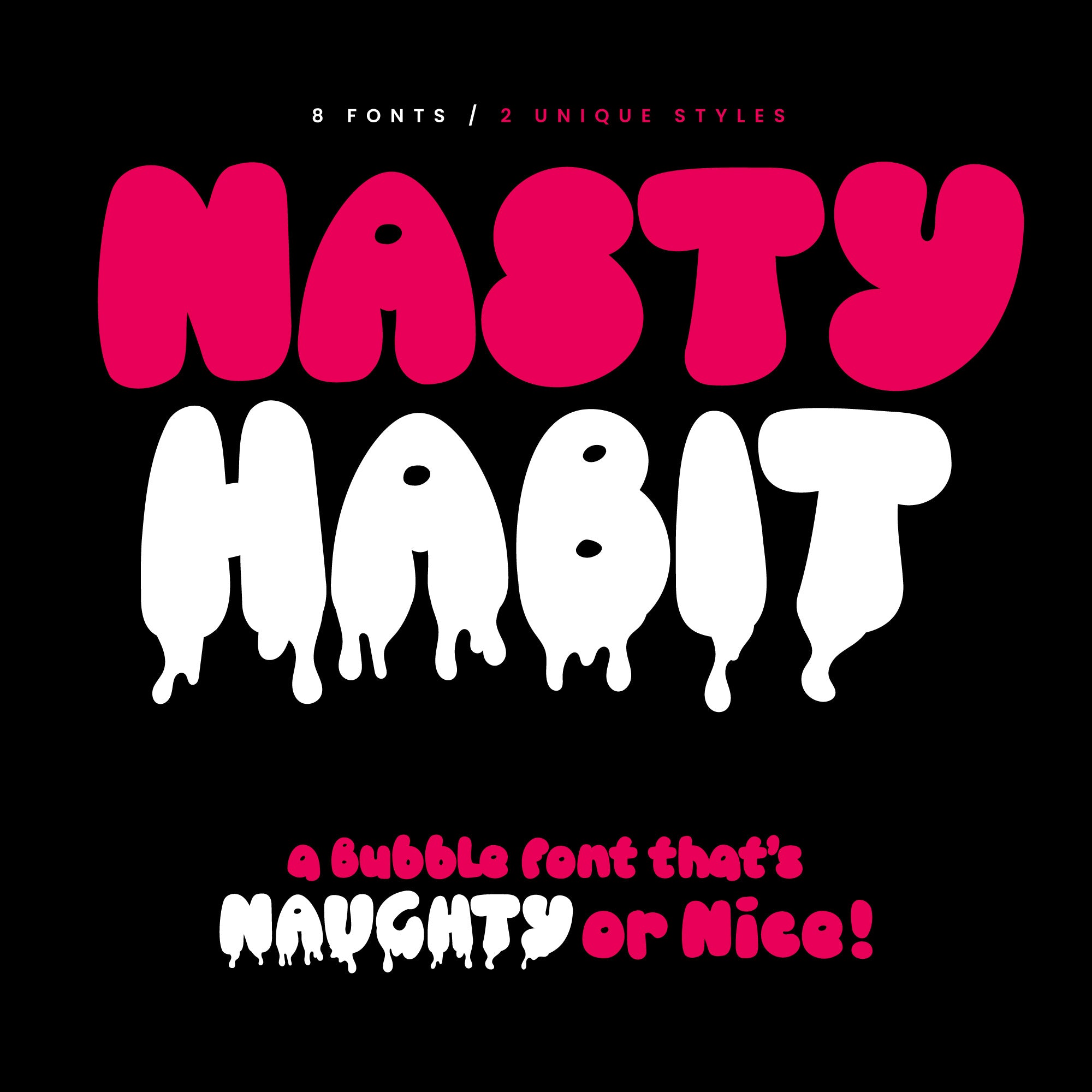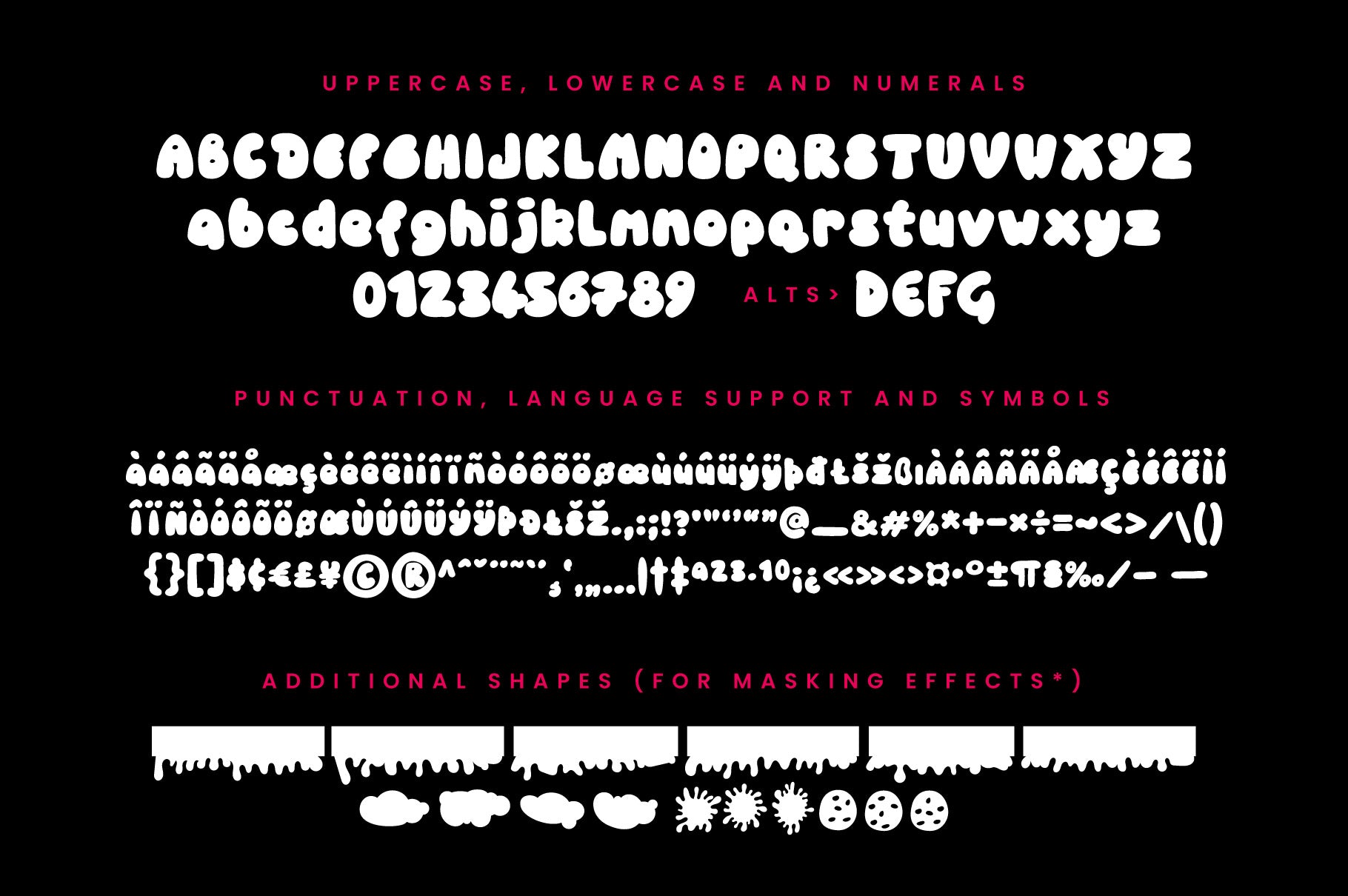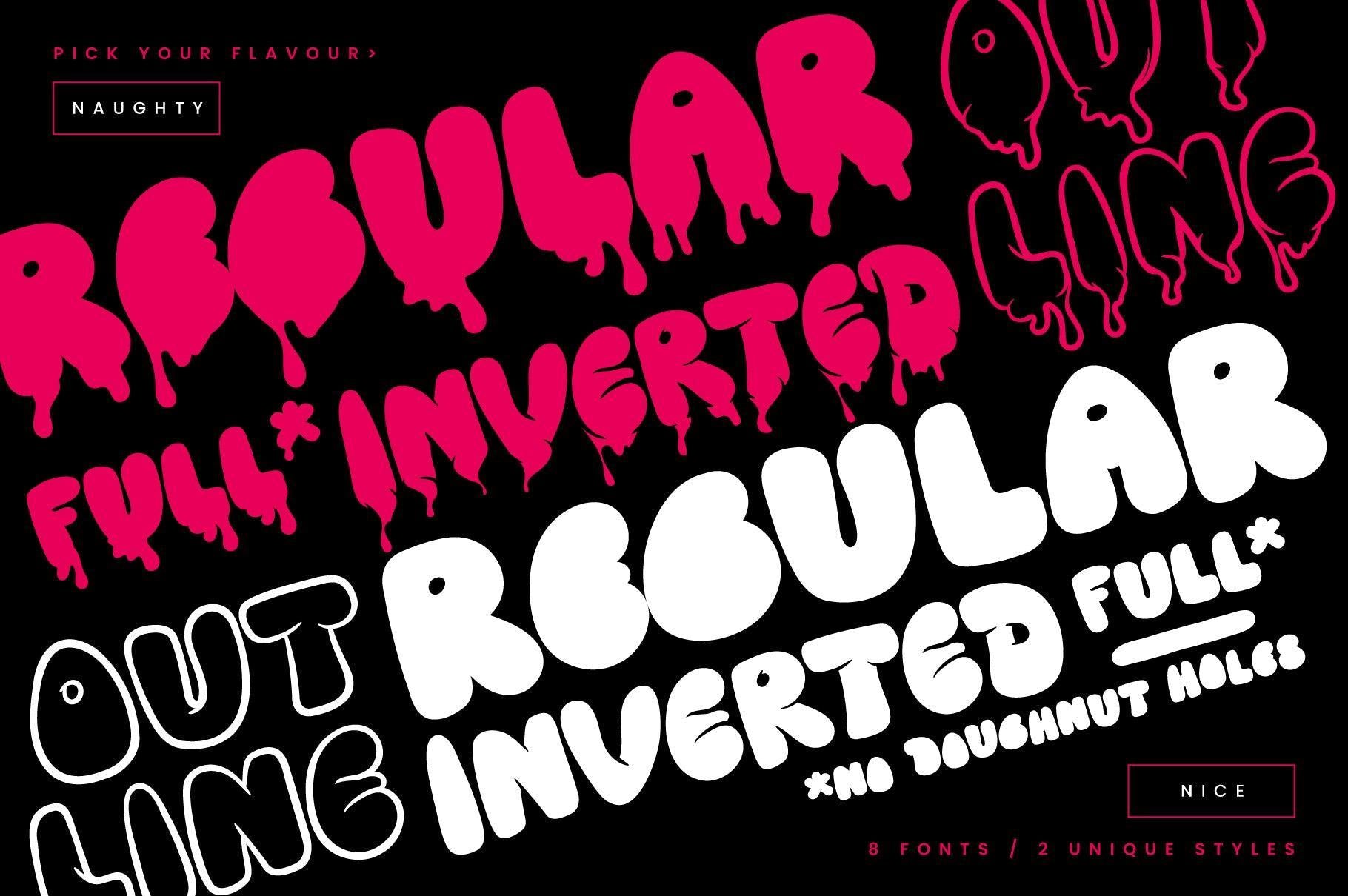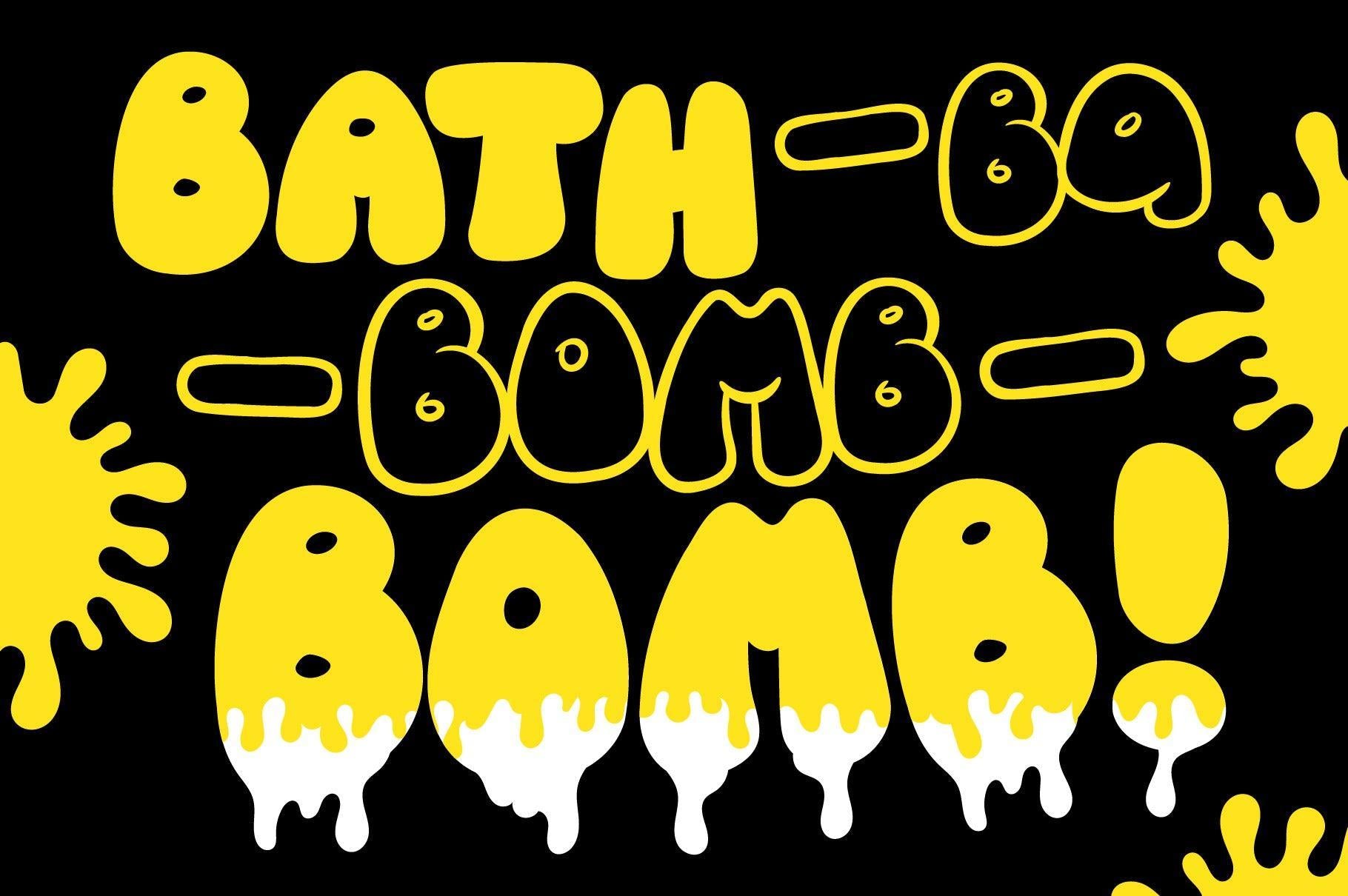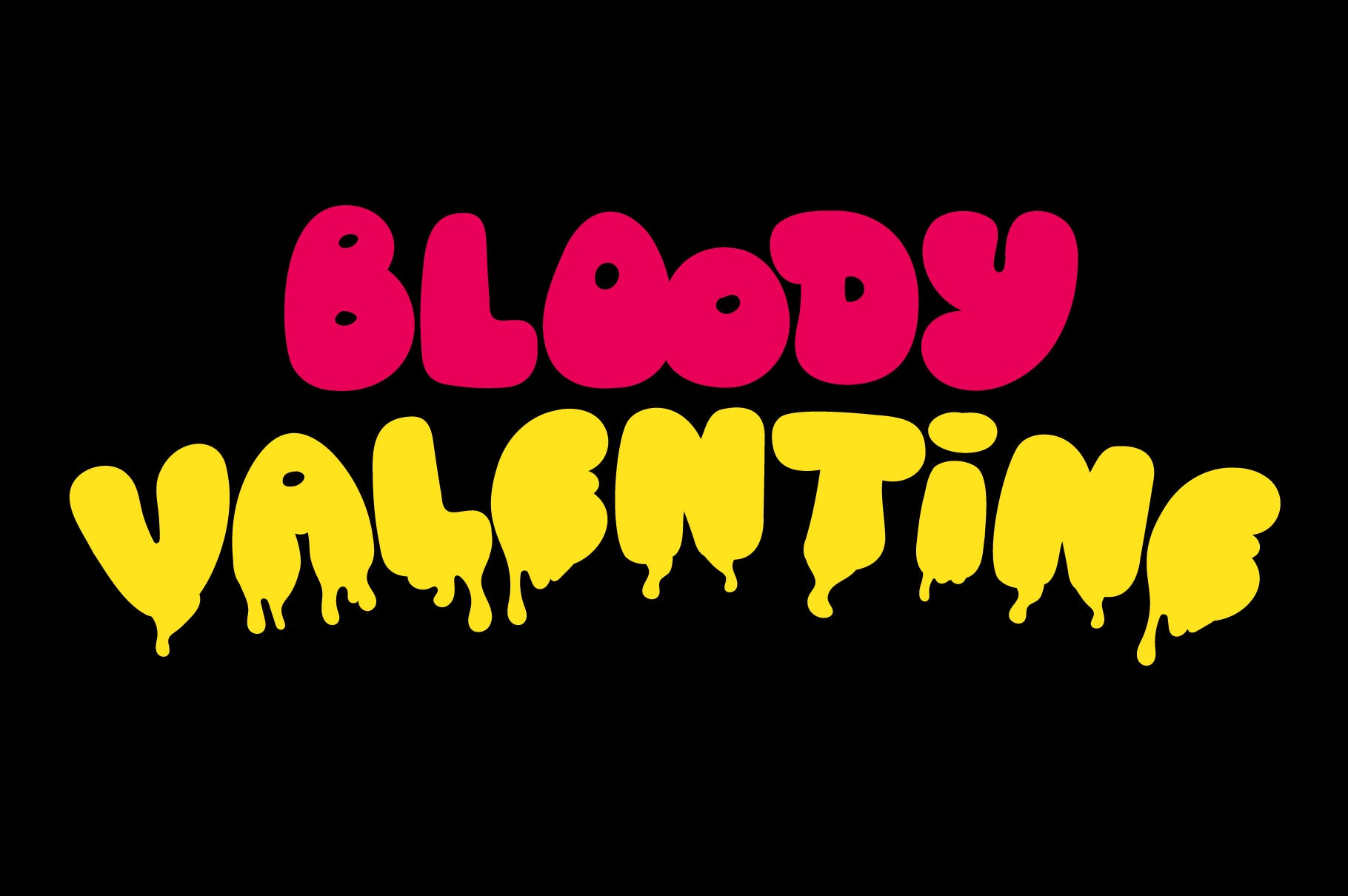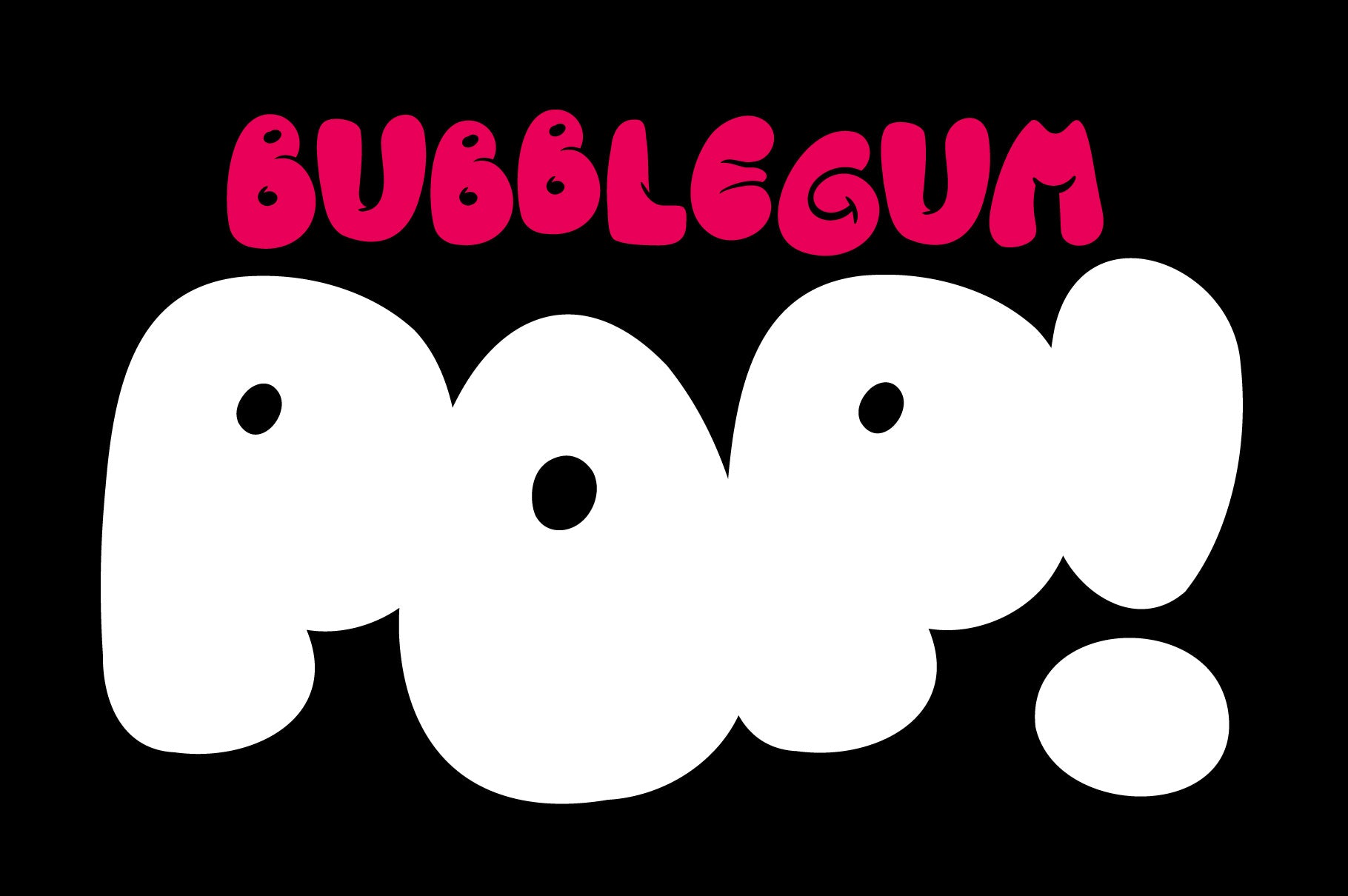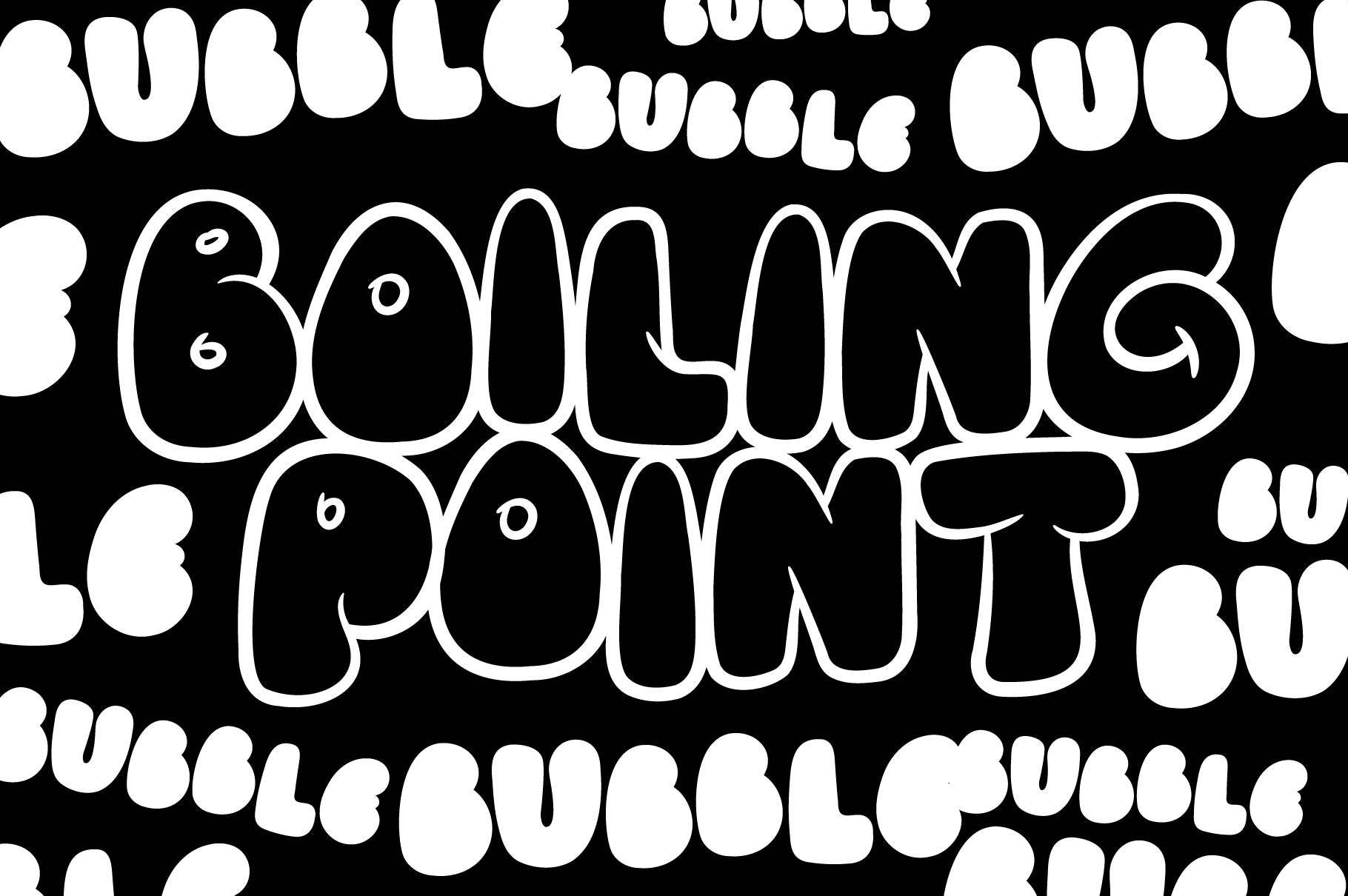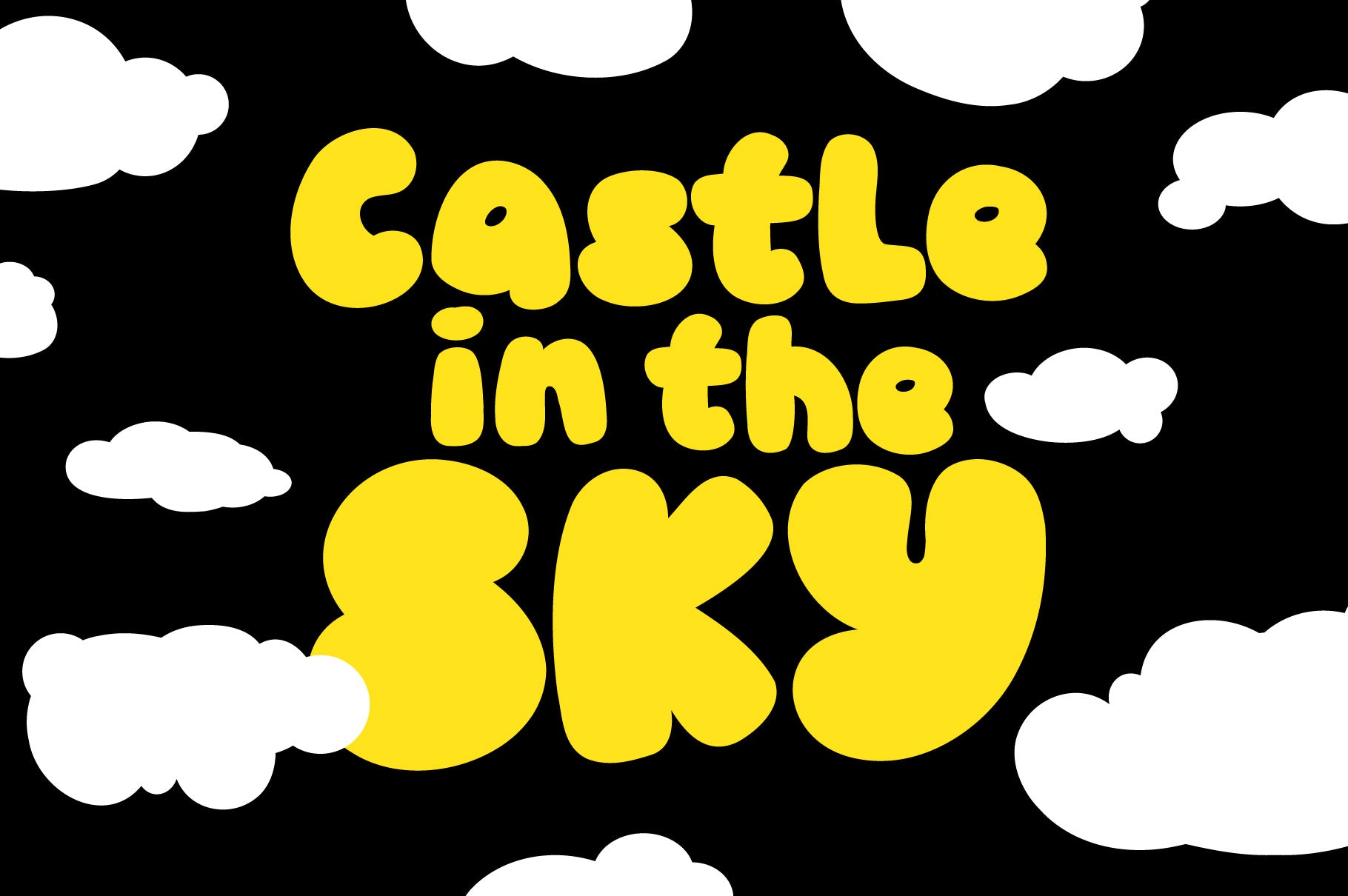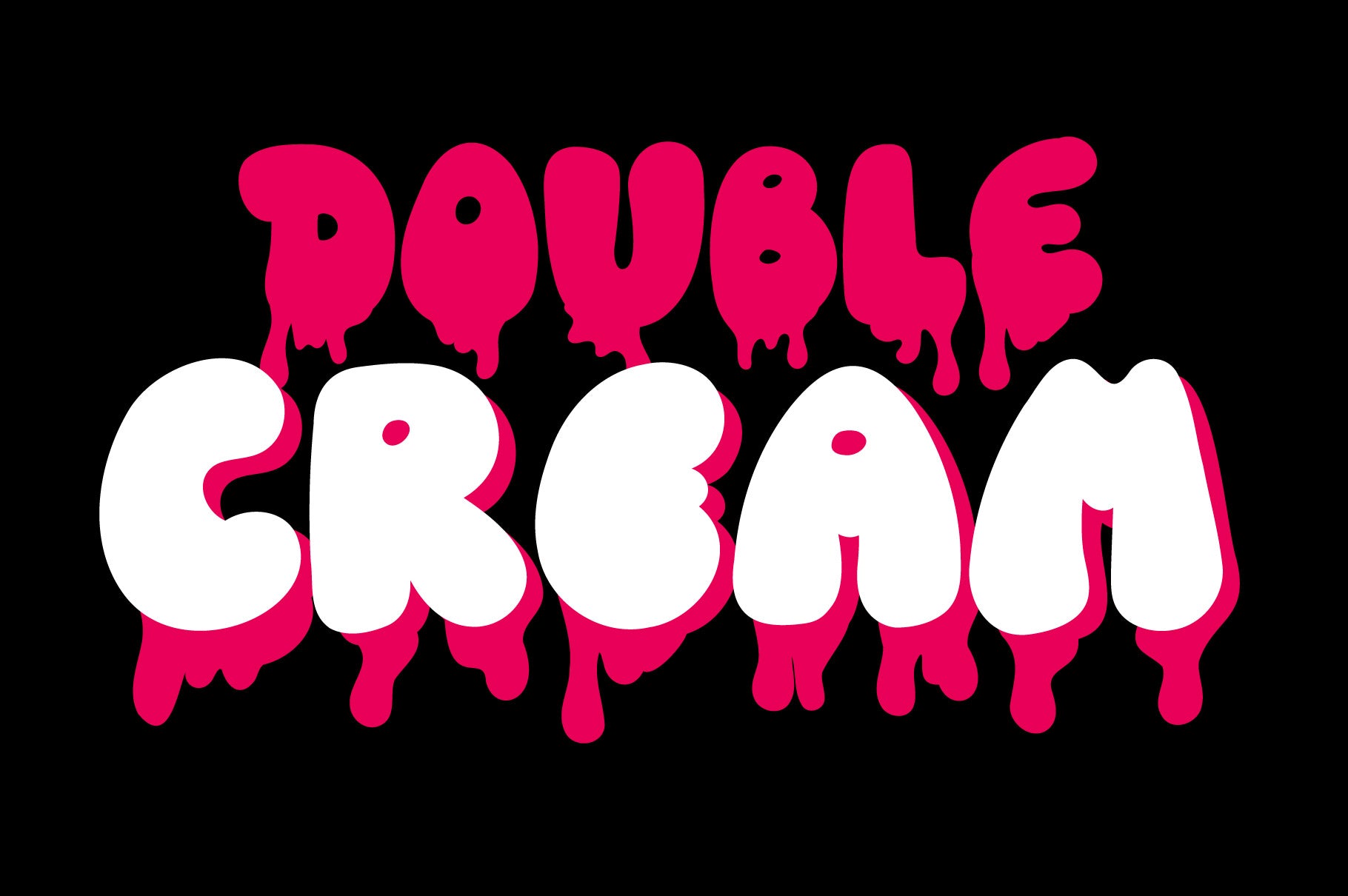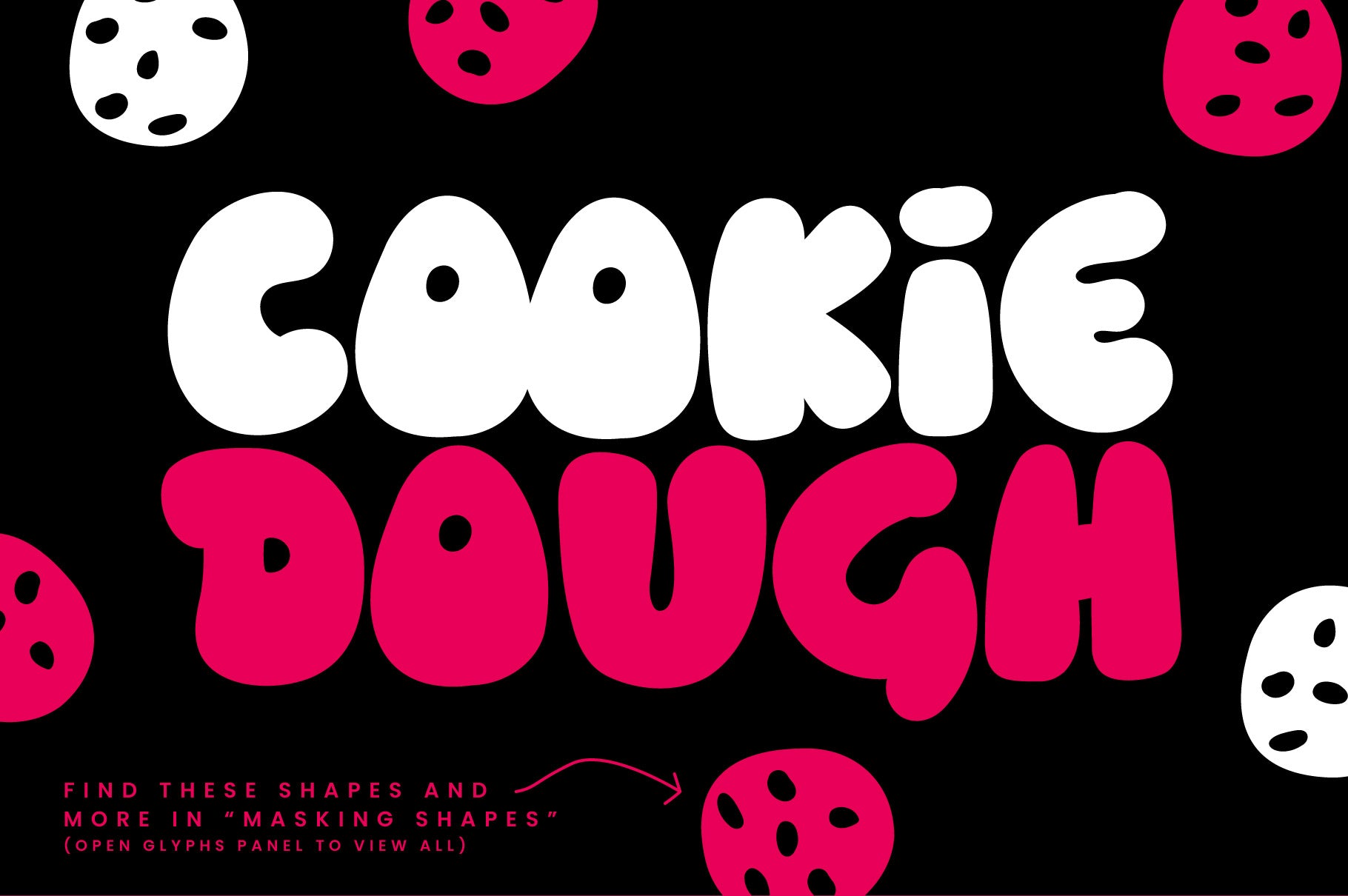
Nasty Habit - A Bubble Font that’s Naughty or Nice!
Nasty Habit is a versatile bubble font featuring eight variations, including a unique outlined style for a hand-drawn appearance. It includes a complete set of uppercase and lowercase characters, numerals, punctuation, symbols, and language support, along with a selection of drippy shapes for added design options.
Ideal for playful and bold graphic design projects. Perfect for children's books, food packaging, and horror movie posters, ensuring a unique and eye-catching visual appeal that captures attention.